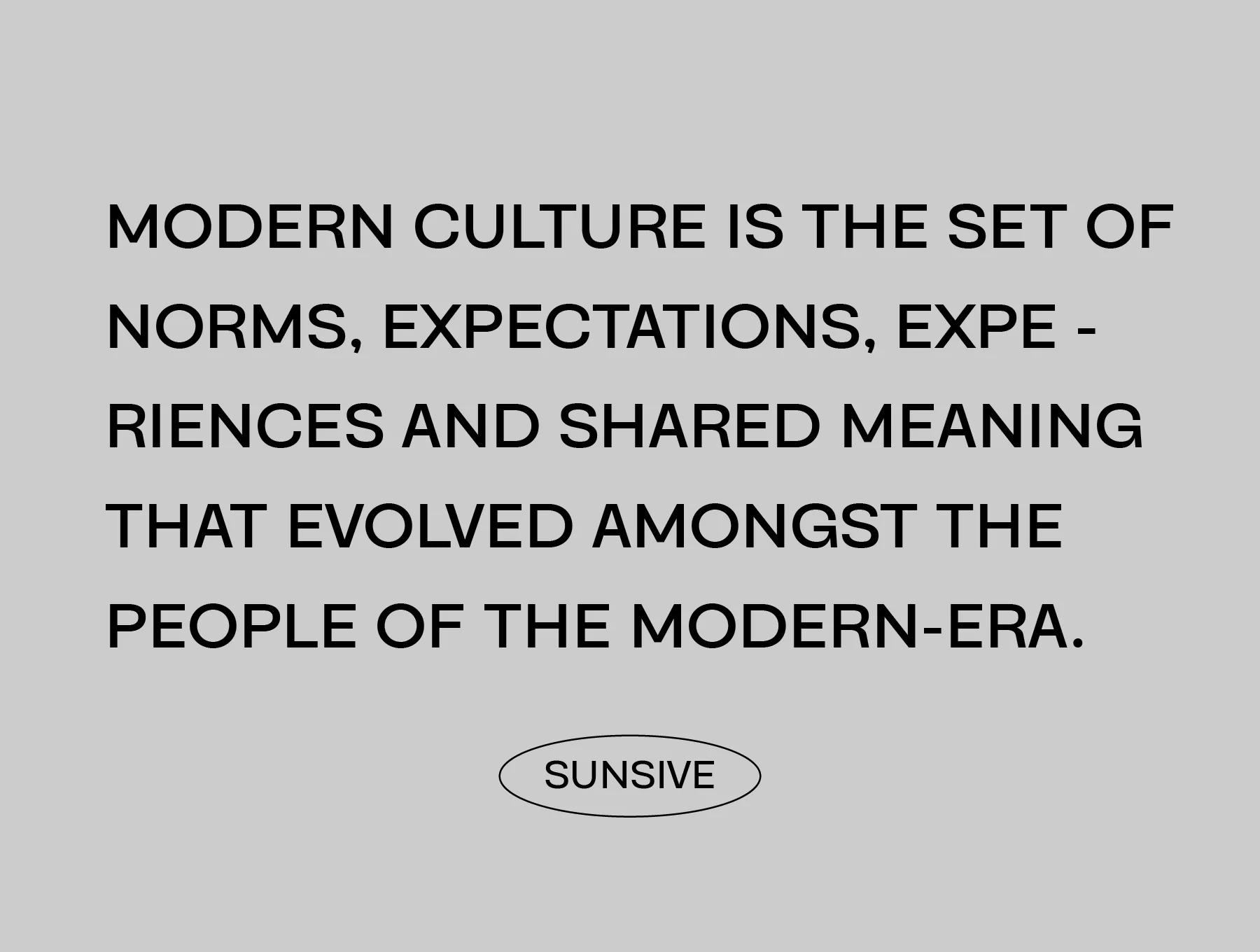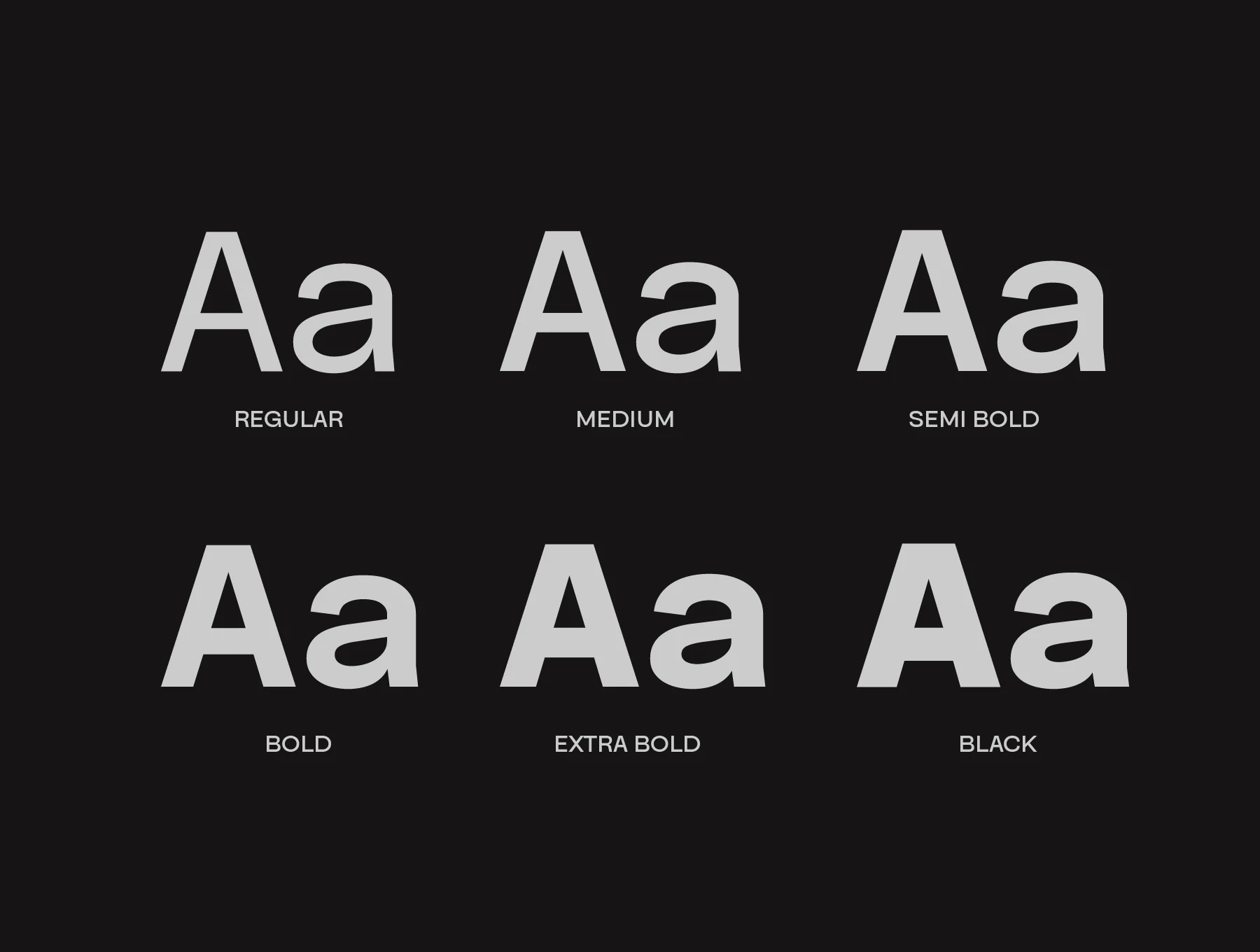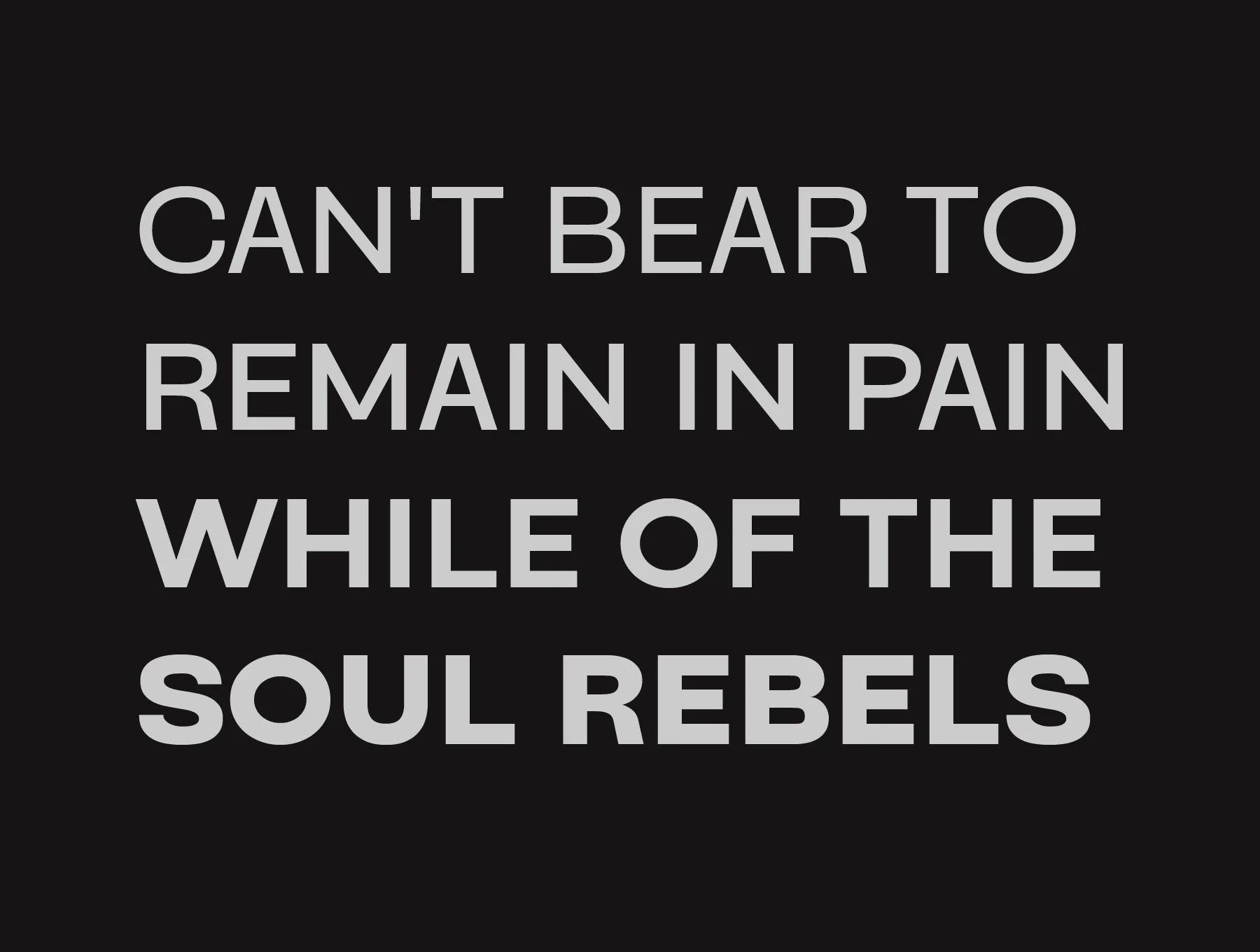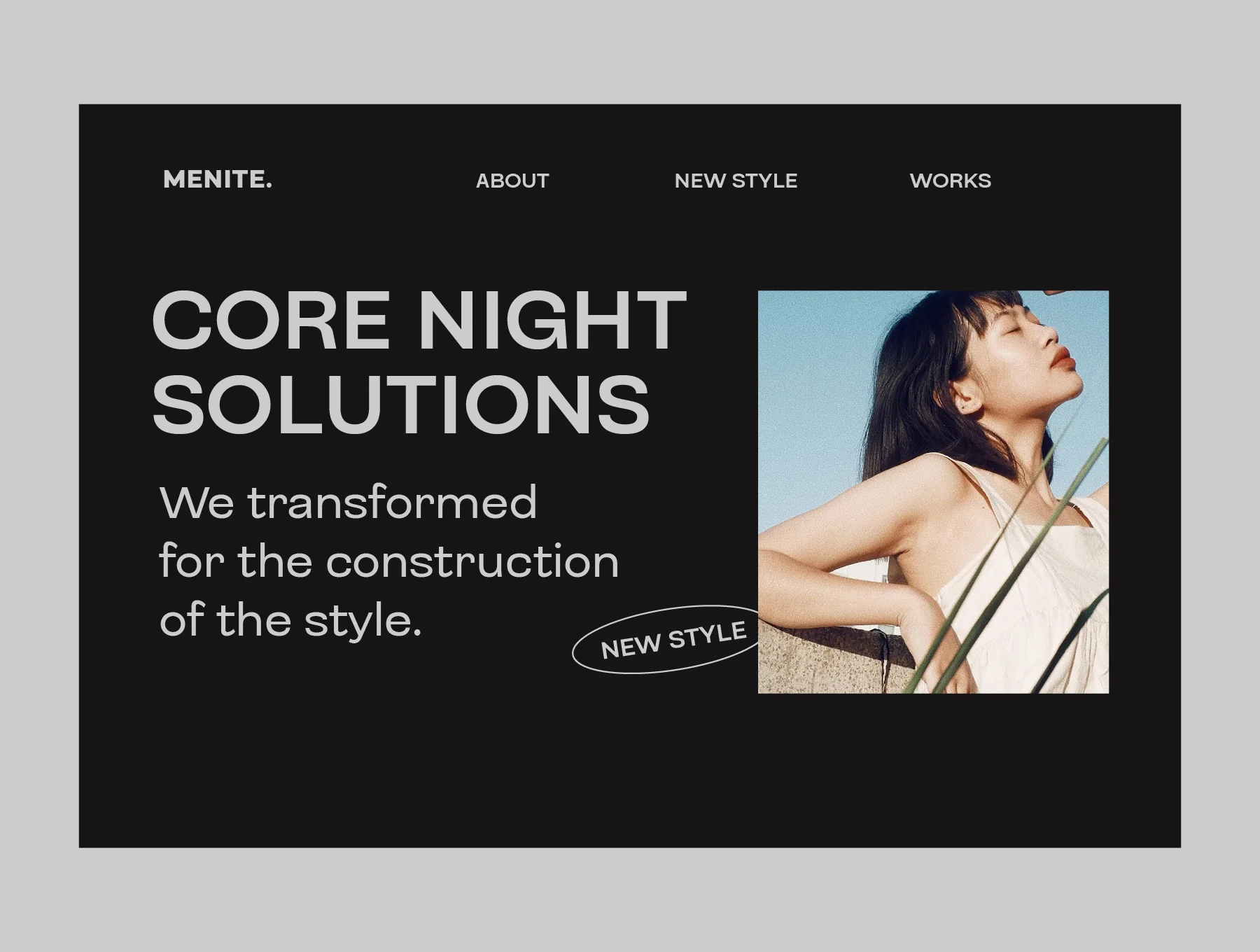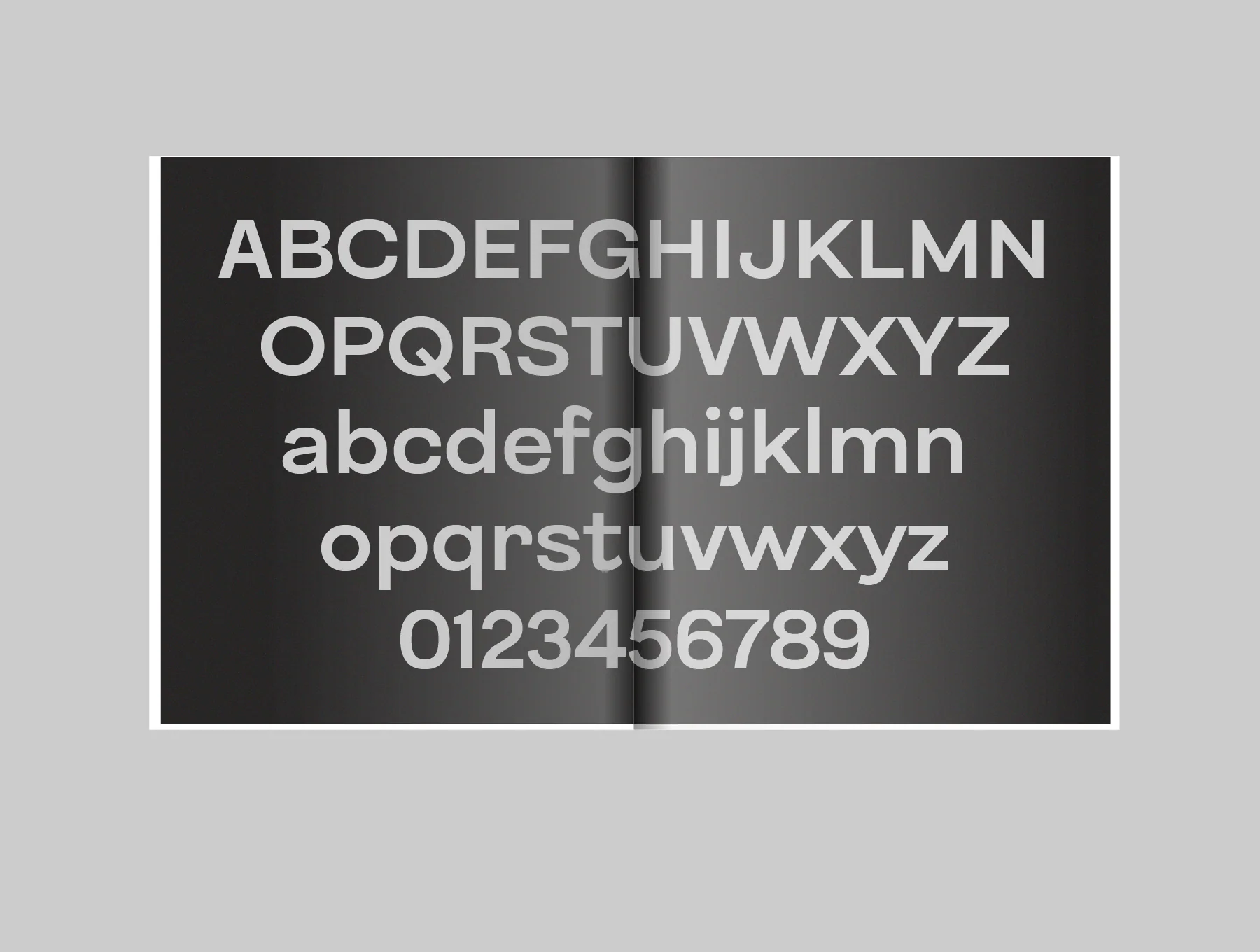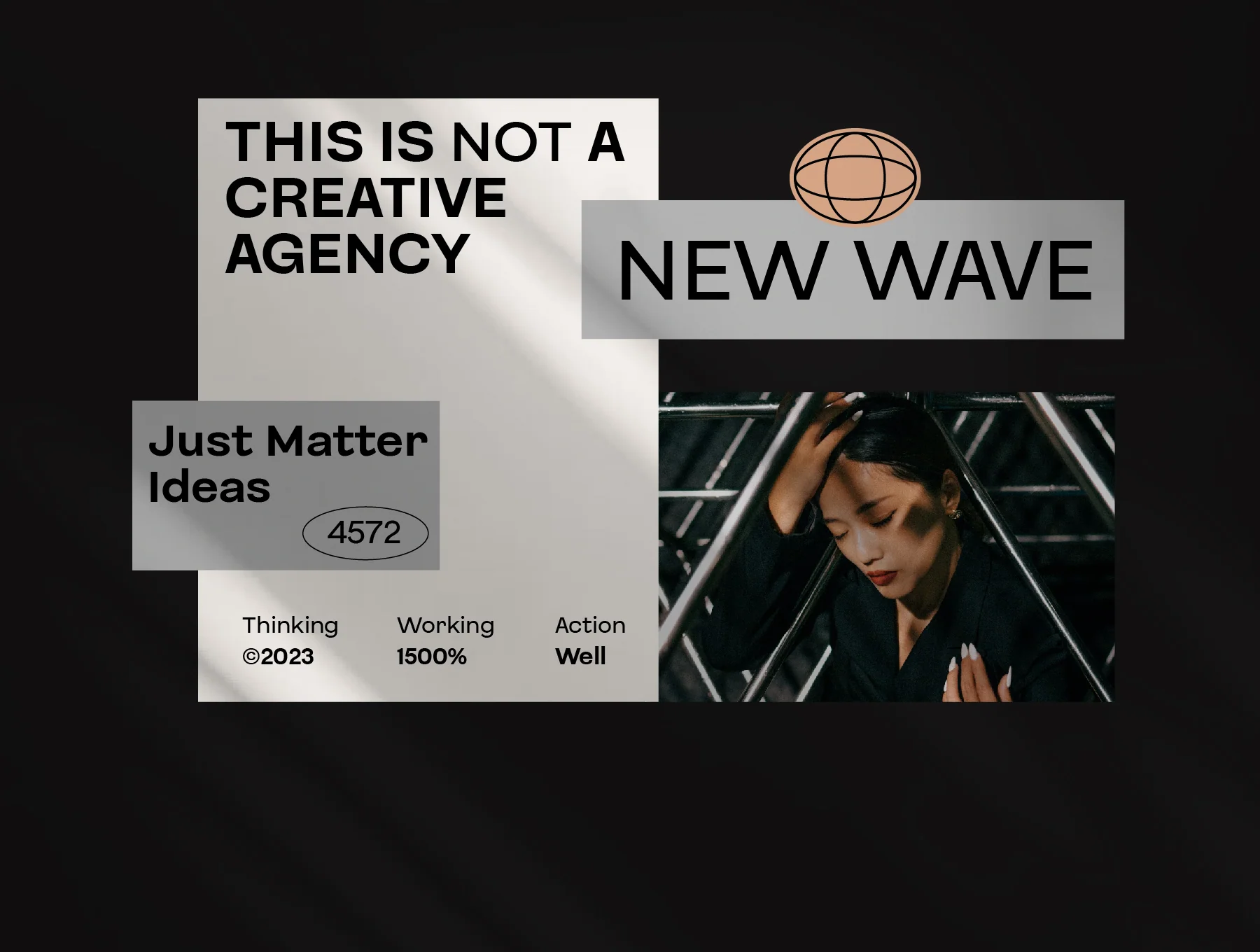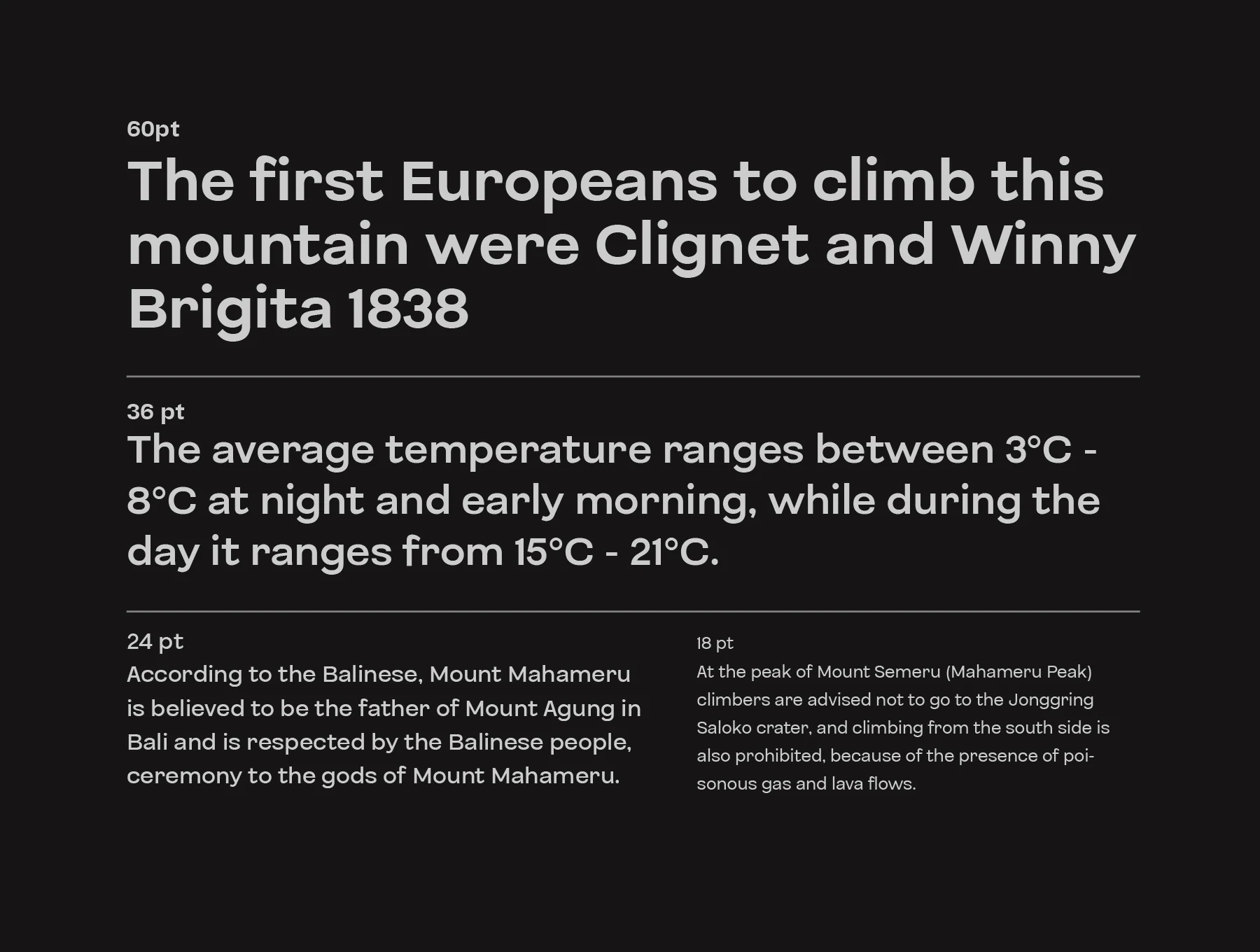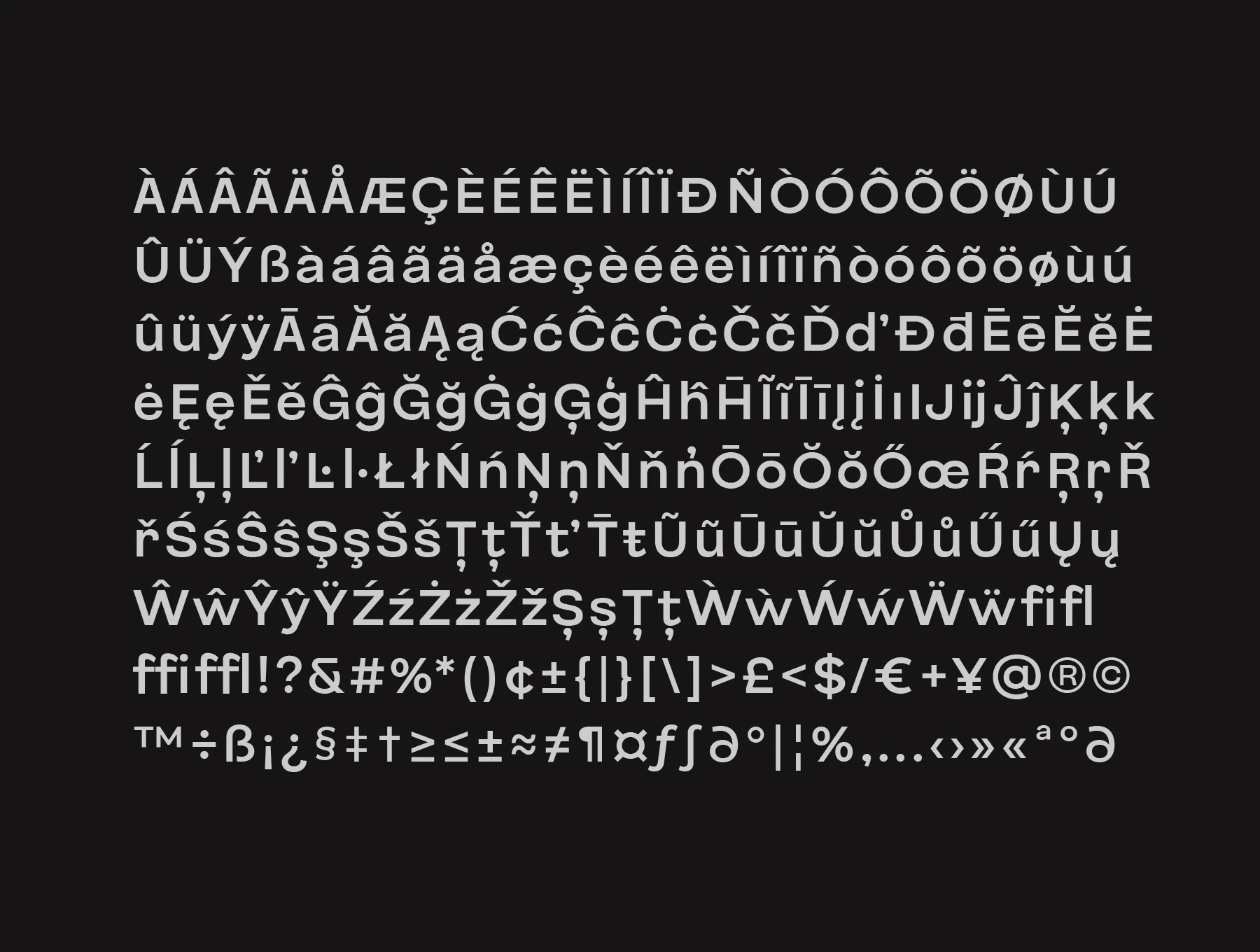
Sunsive Family Font
Sunsive sans serif font family is an ideal pick
Works with 22 languages
Six font weights
Sunsive Sans Serif is ideal for sleek, minimal, and polished design work. Its range of weights from Regular to Black lets you shape text for headlines, body copy, websites, print layouts, and contemporary branding. The typeface adds a strong yet refined feel to visual projects. Includes OTF, TTF, and WOFF files.